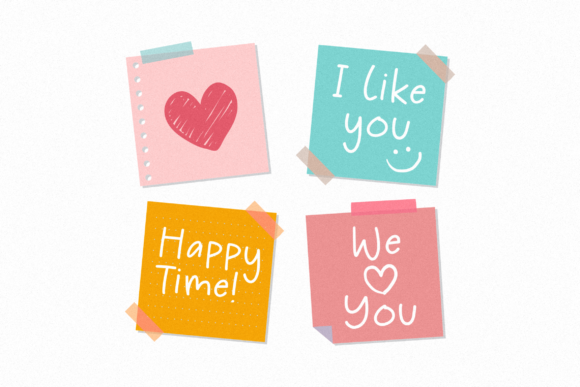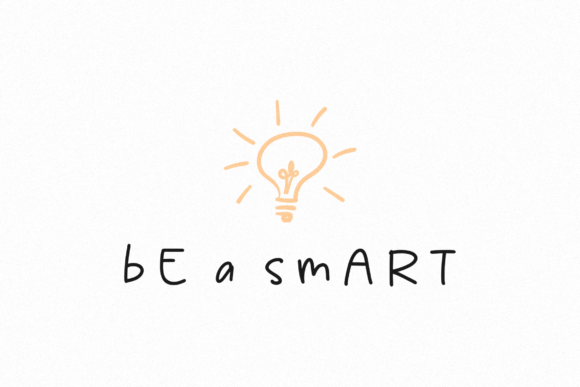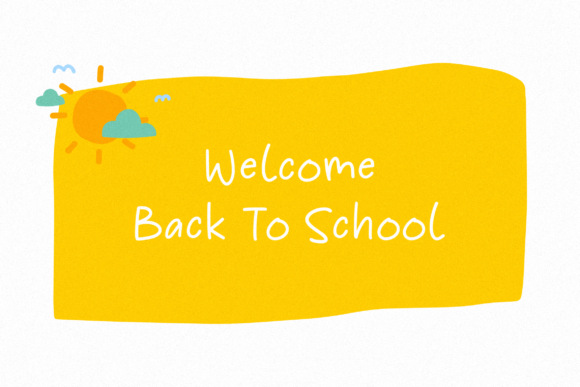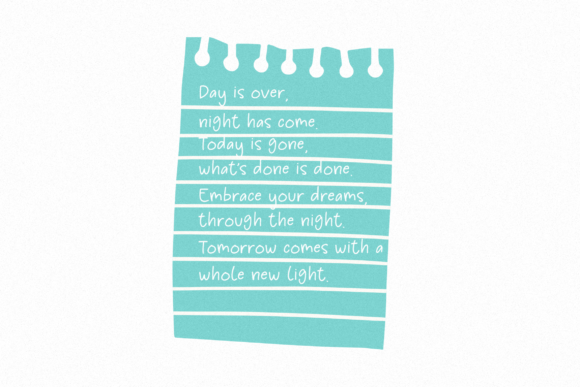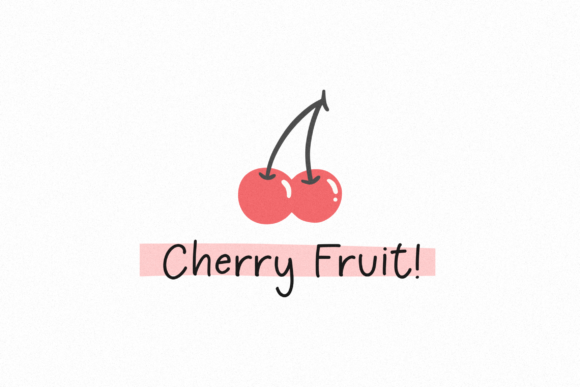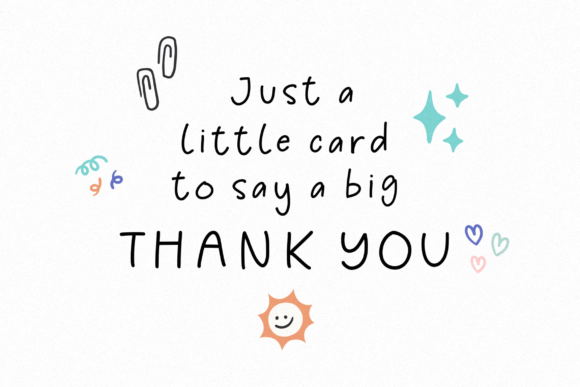
Bumblemilk Font: The Sweetest Kid’s Handwriting Font for Designers and Crafters
Are you a designer or crafter looking for a font that adds a touch of whimsy and playfulness to your projects? Look no further than Bumblemilk, a delightful kid’s handwriting font style that’s perfect for a variety of creative applications.
What is Bumblemilk Font?
Bumblemilk is a charming font designed to mimic the handwriting of a child. Its irregularities and quirks give it a unique, homemade feel that’s sure to capture the hearts of your audience. This font is ideal for designers and crafters who want to add a personal touch to their work, making it perfect for projects that require a playful and youthful vibe.
Uses for Bumblemilk Font
Bumblemilk is a versatile font that can be used in a wide range of projects, including:
- Product Packaging: Add a touch of whimsy to your product packaging with Bumblemilk. Its playful feel makes it perfect for kids’ products, toys, and treats.
- Branding Projects: Use Bumblemilk to create a unique brand identity that’s fun, playful, and engaging. It’s perfect for businesses that cater to families, kids, or young adults.
- Magazines and Publications: Bumblemilk is a great font for magazine headings, titles, and pull-quotes. It adds a touch of playfulness and energy to any publication.
- Social Media: Use Bumblemilk to create eye-catching social media graphics, posts, and stories that are sure to engage your audience.
- Weddings and Events: Bumblemilk is a great font for wedding invitations, party decorations, and other event materials. It adds a touch of whimsy and playfulness to any celebration.
Why Choose Bumblemilk Font?
There are many reasons why Bumblemilk font stands out from the crowd. Here are just a few:
- Unique and Playful: Bumblemilk has a one-of-a-kind feel that’s sure to capture the attention of your audience.
- Easy to Read: Despite its playful nature, Bumblemilk is easy to read, making it perfect for both headings and body text.
- Versatile: Bumblemilk can be used in a wide range of projects, from digital designs to print materials.
- Kid-Friendly: Bumblemilk is a great font for projects that cater to kids, making it perfect for children’s products, toys, and entertainment.
Tips for Using Bumblemilk Font
Here are a few tips for getting the most out of Bumblemilk font:
- Use it sparingly: Bumblemilk is a bold font, so use it sparingly to avoid overwhelming your design.
- Pair it with other fonts: Bumblemilk pairs well with clean, sans-serif fonts. Try pairing it with a font like Arial or Helvetica for a striking contrast.
- Experiment with colors: Bumblemilk looks great in a variety of colors, so don’t be afraid to experiment and find the perfect hue for your project.
Bumblemilk font is a delightful kid’s handwriting font style that’s perfect for designers and crafters looking to add a touch of whimsy and playfulness to their projects. Its unique feel, versatility, and kid-friendly nature make it a great choice for a wide range of creative applications. Whether you’re working on product packaging, branding projects, or social media graphics, Bumblemilk is sure to bring a smile to your audience’s faces.